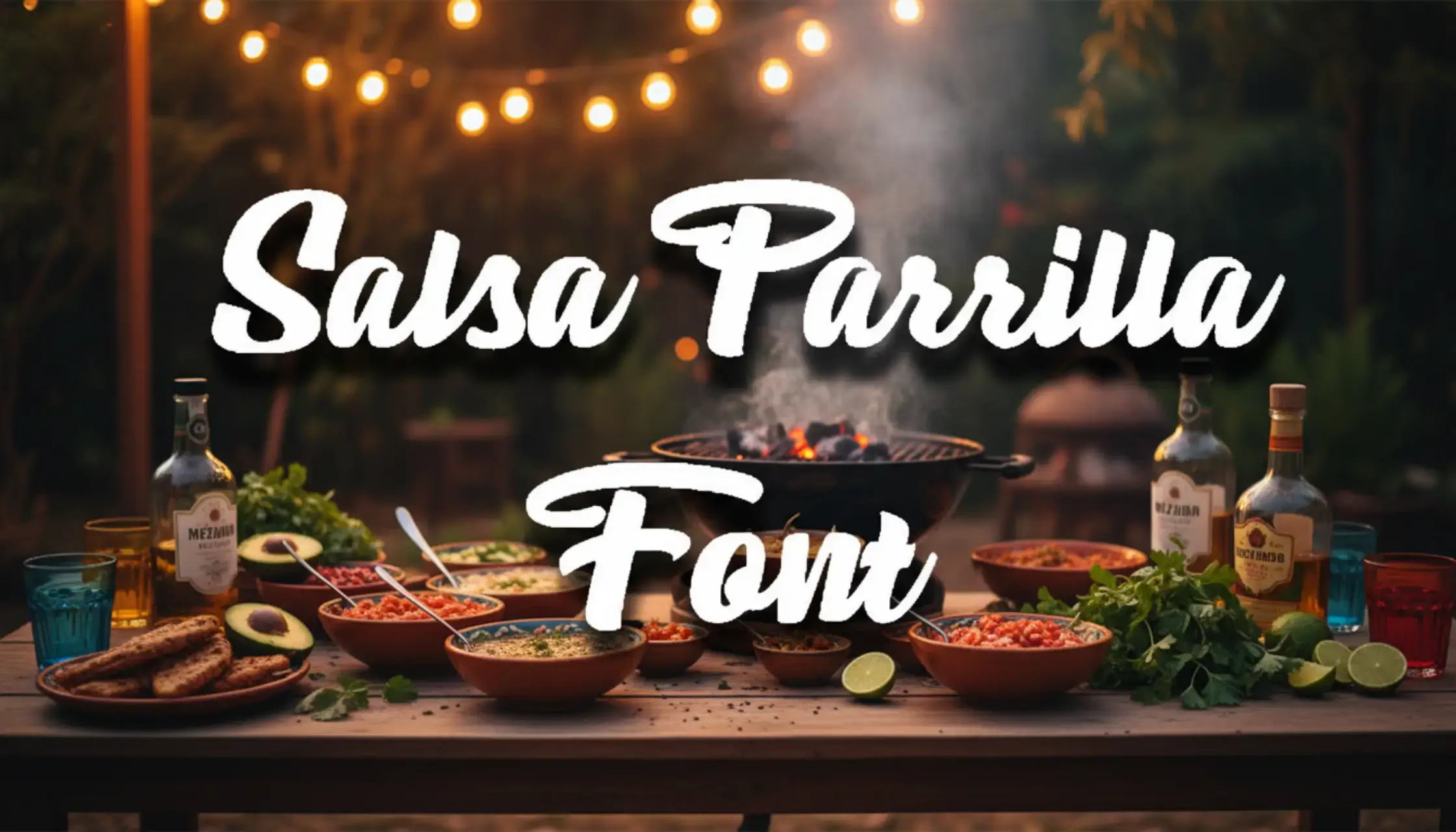
Salsa Parrilla Font
Salsa Parrilla is an old school font created by billy argel. It has a vintage feel that recalls hand-painted signs, old labels and classic shopfronts. It's a free download, and you can try it with your own text in the preview above first.
What You Can Type With Salsa Parrilla
You get every letter from A to Z in both cases and all the numbers from 0 to 9, which means Salsa Parrilla can handle full sentences, dates and prices. Punctuation is limited, so look at the character map if you need a specific symbol. Thanks to its accented letters, it also works for Spanish, French, German, Portuguese and Italian, not just English.
Where Salsa Parrilla Works Best
Salsa Parrilla is a natural fit for vintage signs, barber shop logos and retro labels. Put it on an off-white or kraft-paper background and it instantly looks older.
Does Salsa Parrilla support accented letters?
Yes. Salsa Parrilla includes the accented letters needed for Spanish, French, German, Portuguese and Italian, so it works for more than just English.
What fonts pair well with Salsa Parrilla?
It pairs nicely with a classic serif or a condensed sans serif for the supporting lines.